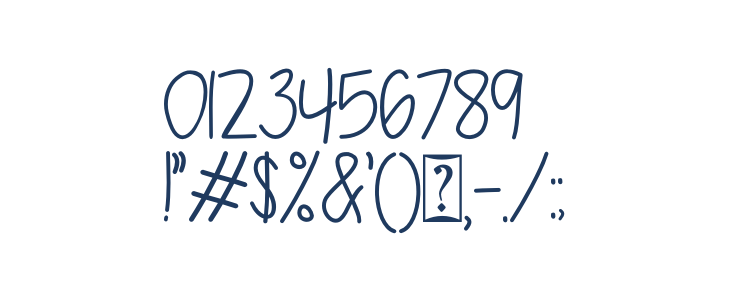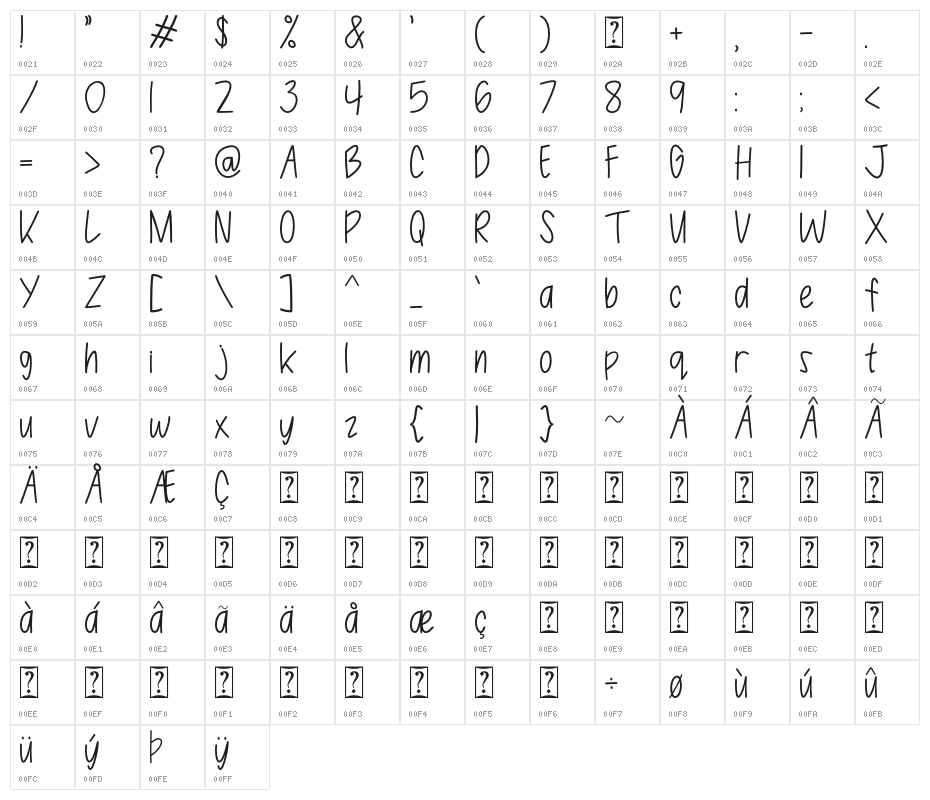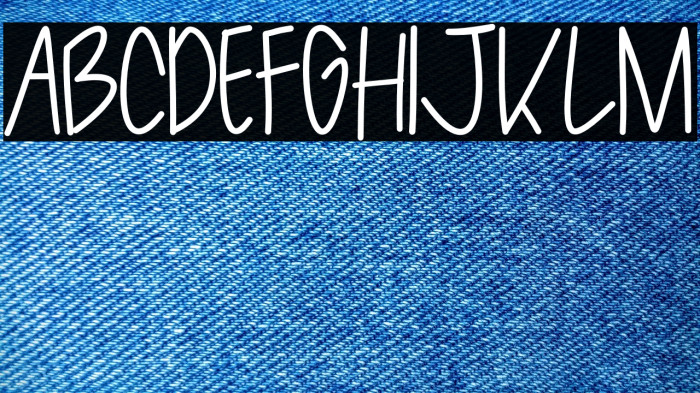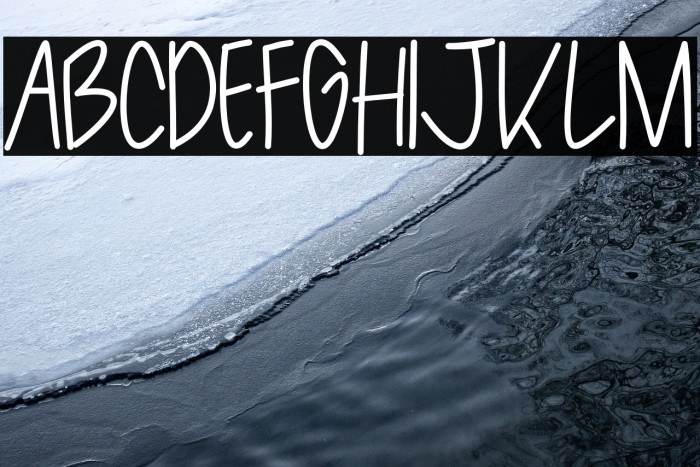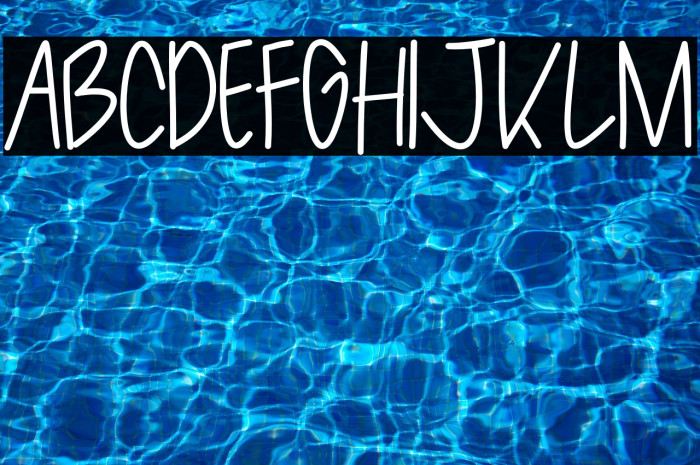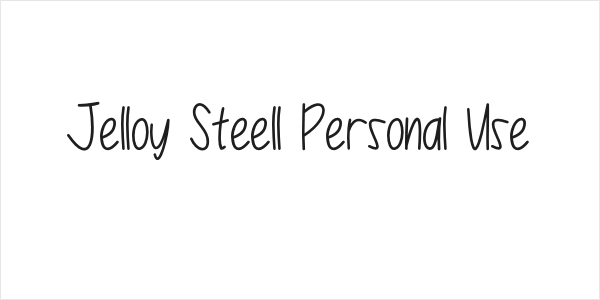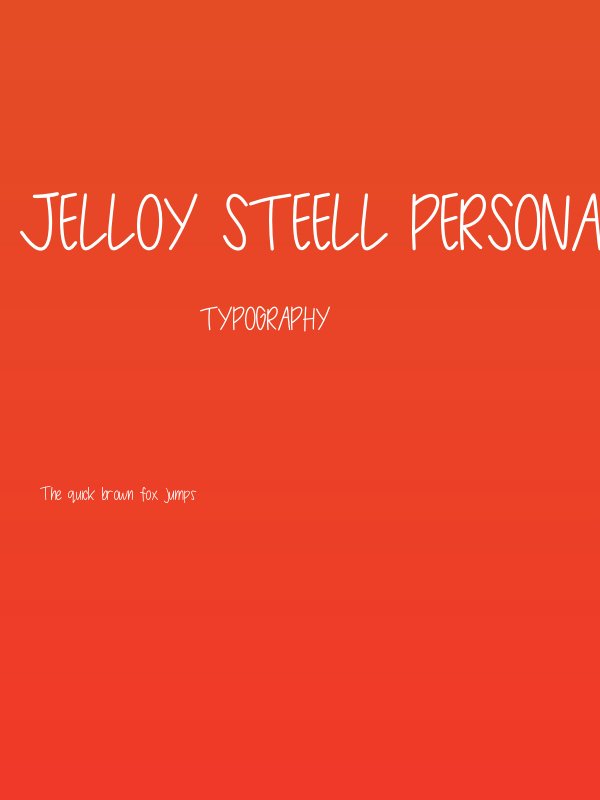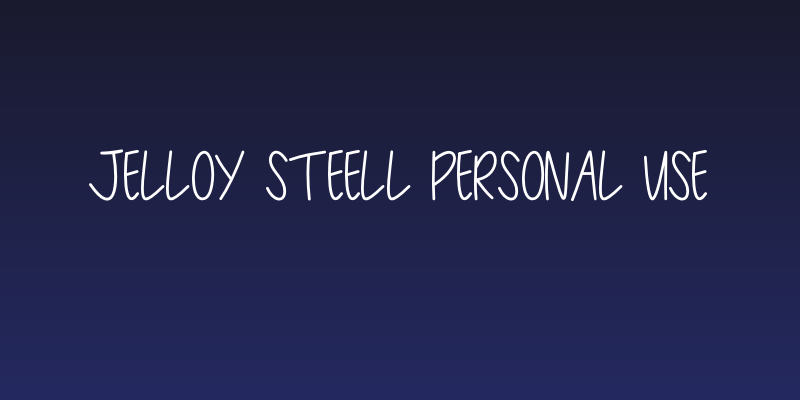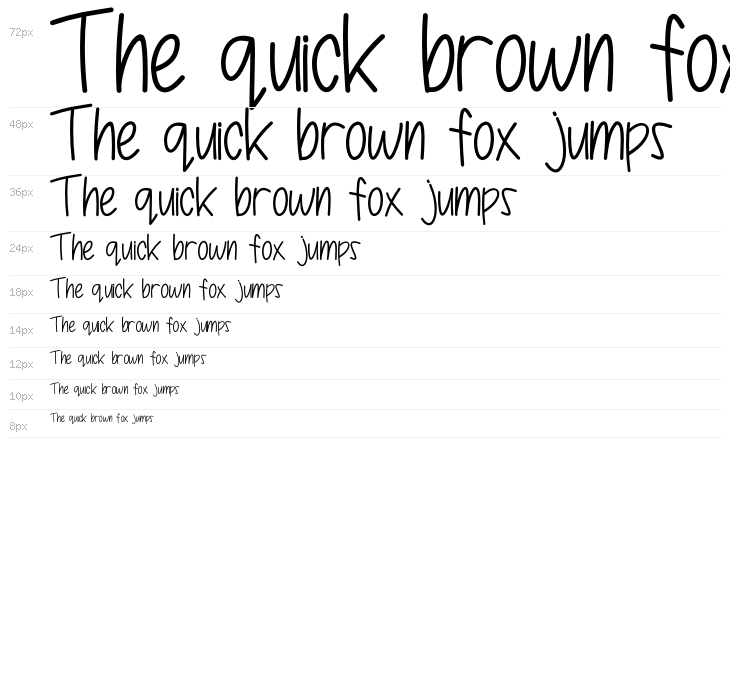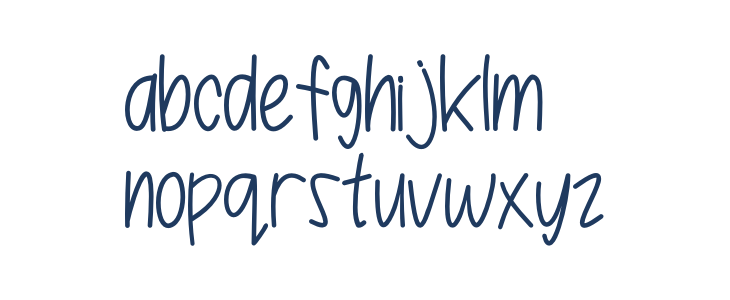
Jelloy Steell Personal Use Font
Jelloy Steell Personal Use Description
This font features a playful and informal handwritten style, characterized by its tall, narrow letters and slightly irregular strokes. The uppercase letters are bold and prominent, while the lowercase letters maintain a consistent flow with a casual appearance. Numbers and special characters are crafted with the same whimsical touch, making them stand out in a friendly manner. The overall design is approachable and lively, suitable for projects that require a personal and engaging feel. The font's unique charm lies in its ability to convey a sense of spontaneity and creativity, making it ideal for informal and fun applications.
Overall StyleCasual
Use CaseHeadlines, Informal text, Creative projects
Proposed ProjectsIdeal for greeting cards, children's books, playful branding, and social media graphics.